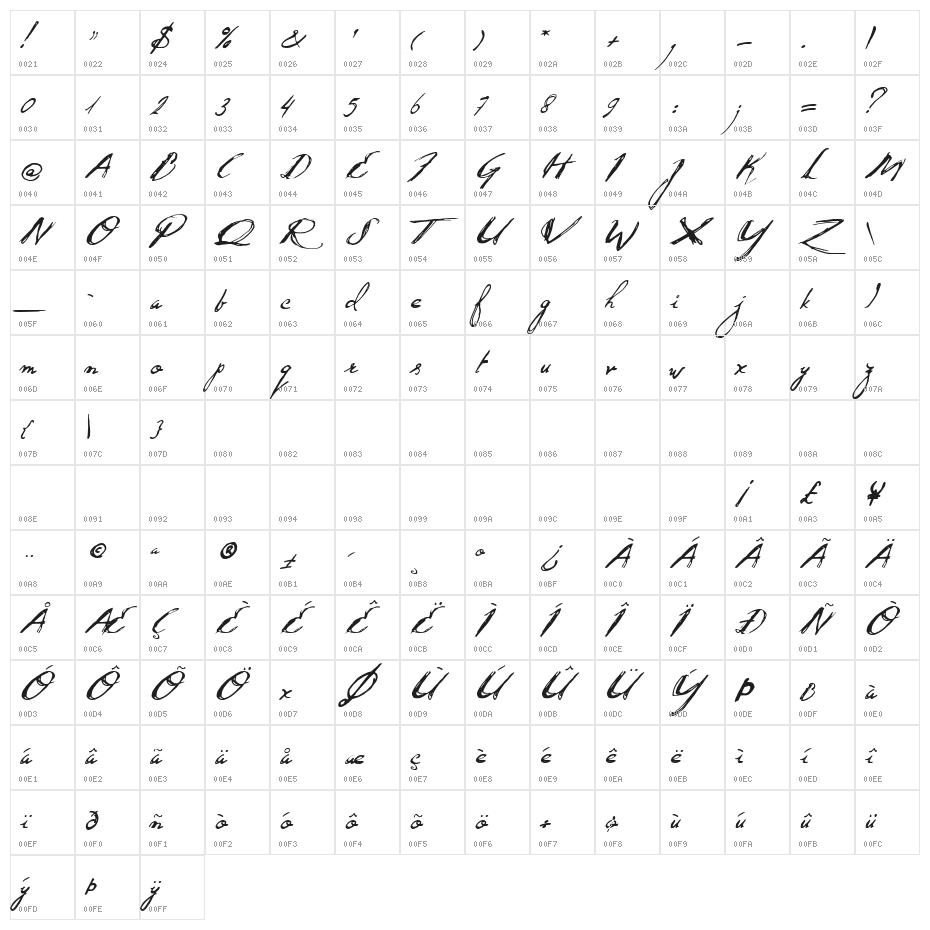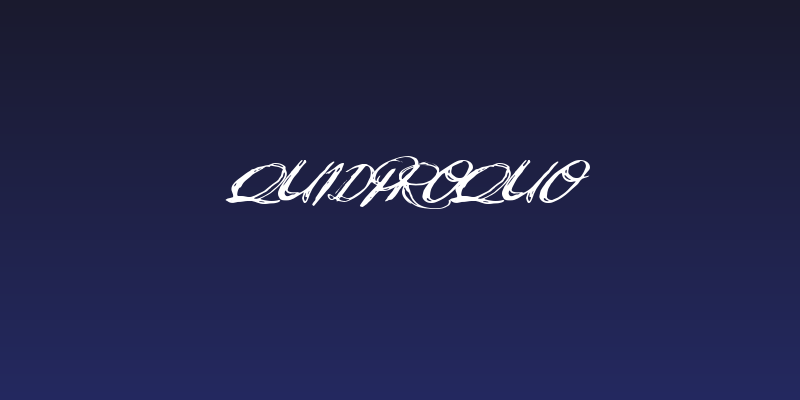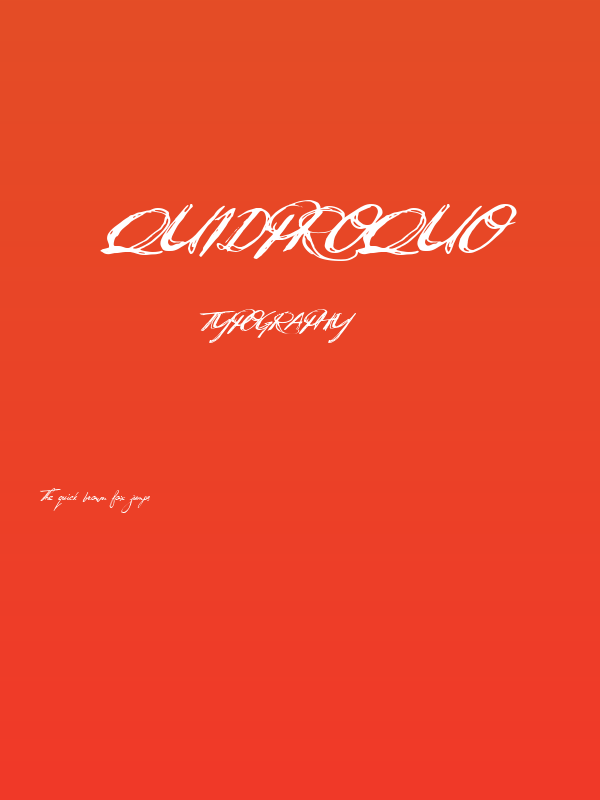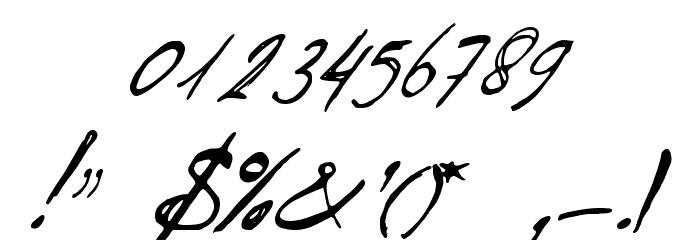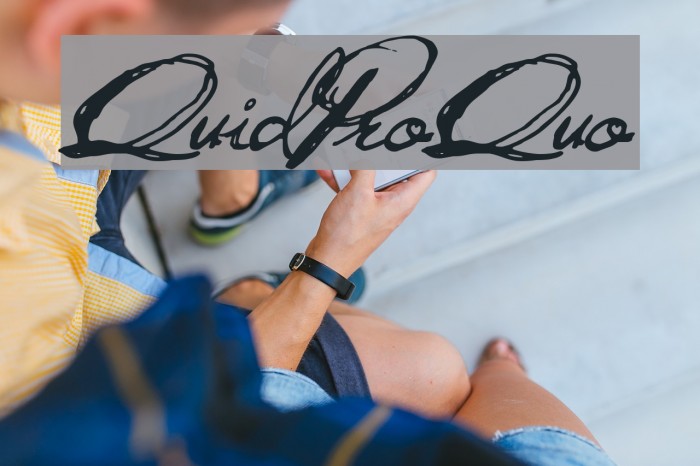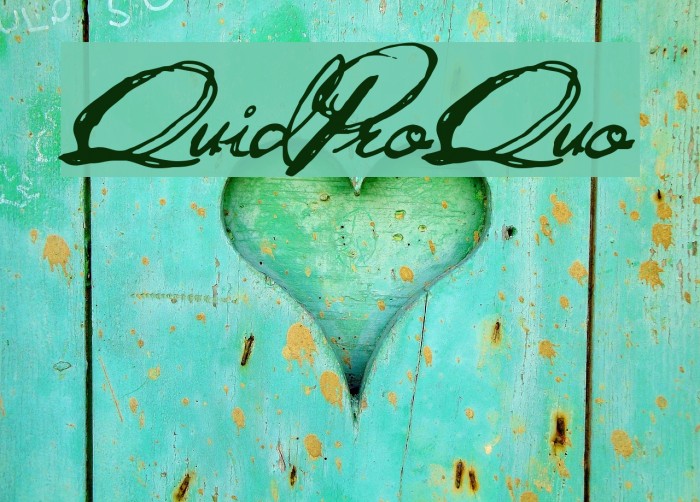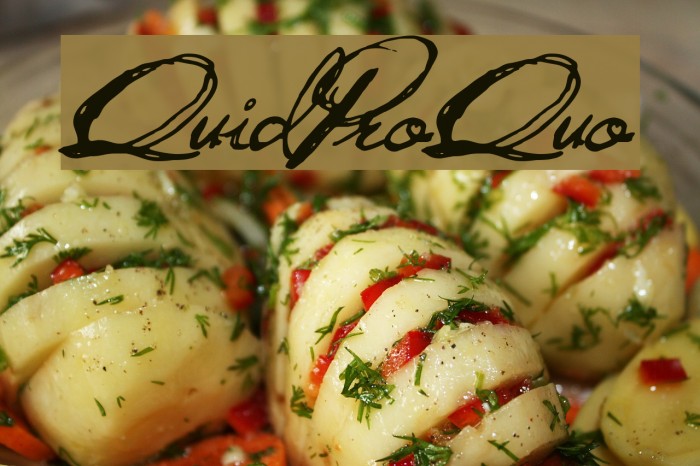
QuidProQuo Font
QuidProQuo Description
This font exudes a dynamic and expressive style, characterized by its fluid and cursive strokes that mimic the elegance of handwritten script. The letters are interconnected with a natural flow, creating a sense of movement and spontaneity. The uppercase letters are bold and sweeping, while the lowercase letters maintain a consistent rhythm and balance. Numbers and special characters are crafted with the same attention to detail, ensuring a cohesive look across all elements. The overall appearance is artistic and slightly chaotic, yet retains readability, making it suitable for creative and informal applications.
| Use Case | Logos, Invitations, Artistic projects |
| Proposed Projects | Ideal for artistic projects, invitations, greeting cards, and branding that requires a personal touch. |